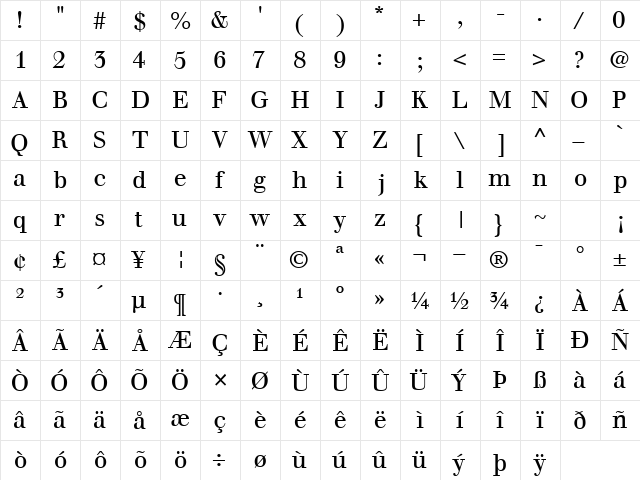
WalbaumSSK Regular
Design Context for WalbaumSSK Typeface
WalbaumSSK takes a measured approach to typography — its balanced proportions and neutral character make it a reliable workhorse for both digital and print work.